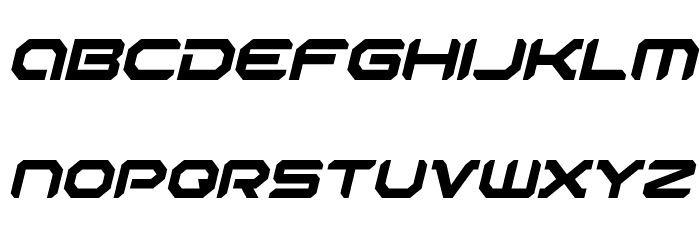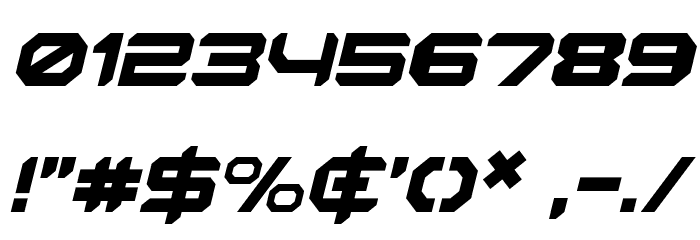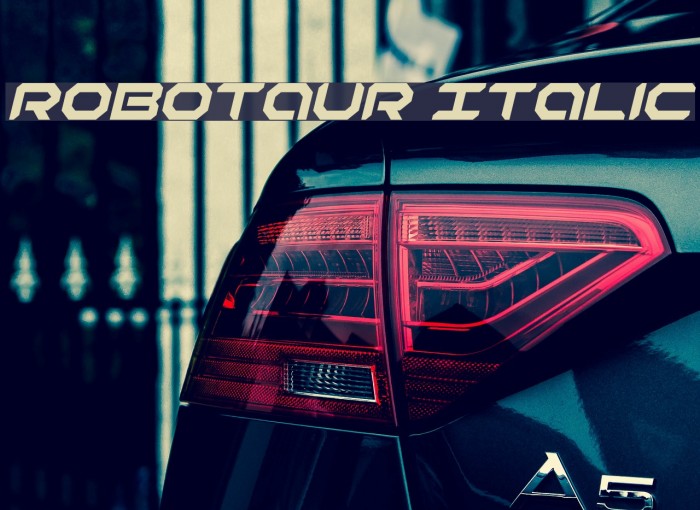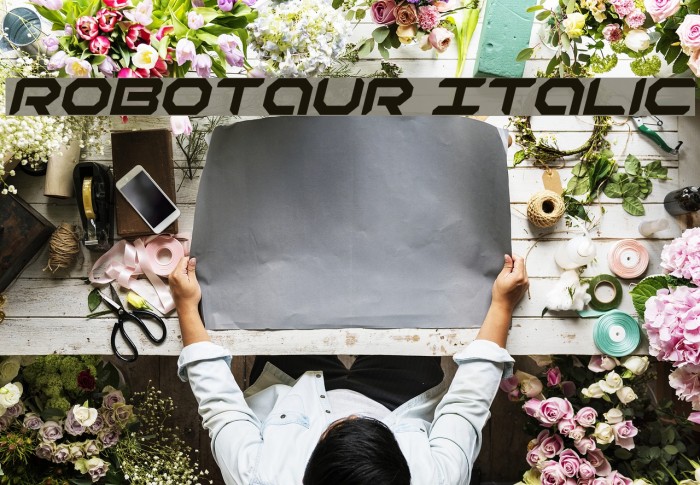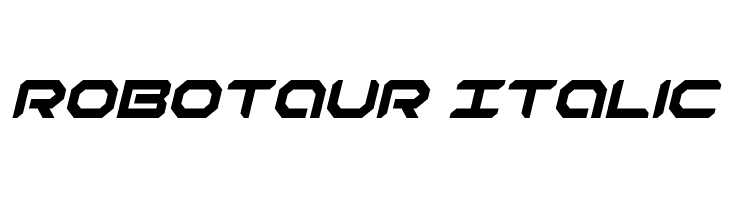
Robotaur Italic Font
This font features a futuristic and angular design, characterized by its bold and italicized structure. The letters are crafted with sharp edges and a forward-leaning stance, giving it a dynamic and modern appearance. The uppercase and lowercase letters maintain a consistent style, with a geometric influence that is evident in the uniformity of the shapes. The numerals and special characters follow the same design principles, ensuring a cohesive look across all characters. This font is ideal for projects that require a cutting-edge and tech-inspired aesthetic.
A bold, italicized font with a futuristic and angular design.
- Proposed Projects: Ideal for tech branding, video game titles, sci-fi posters, and modern digital interfaces.